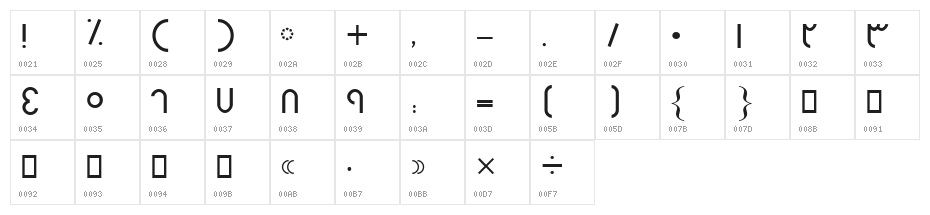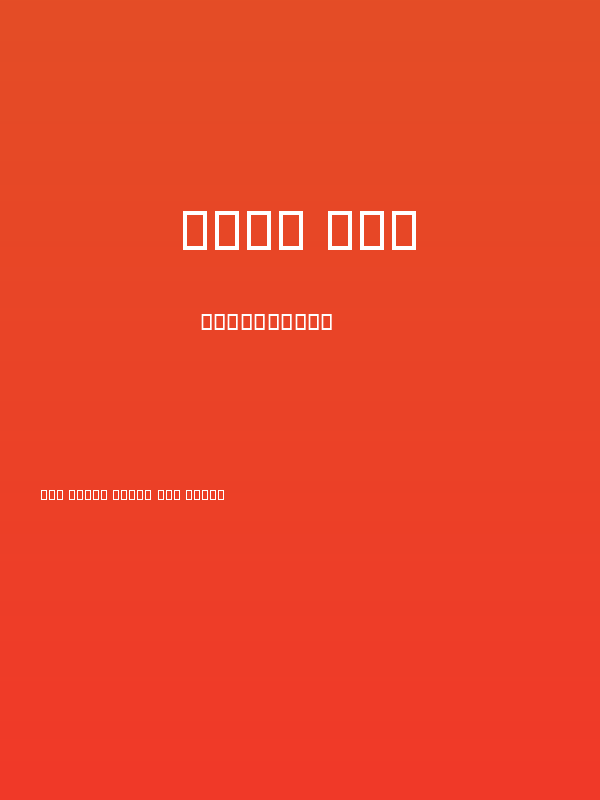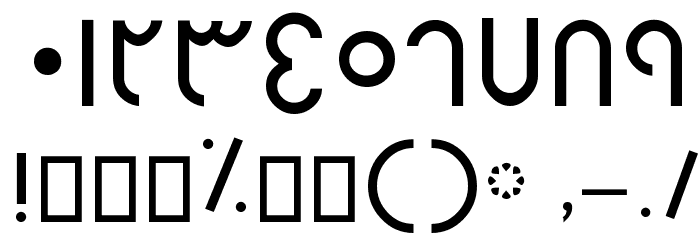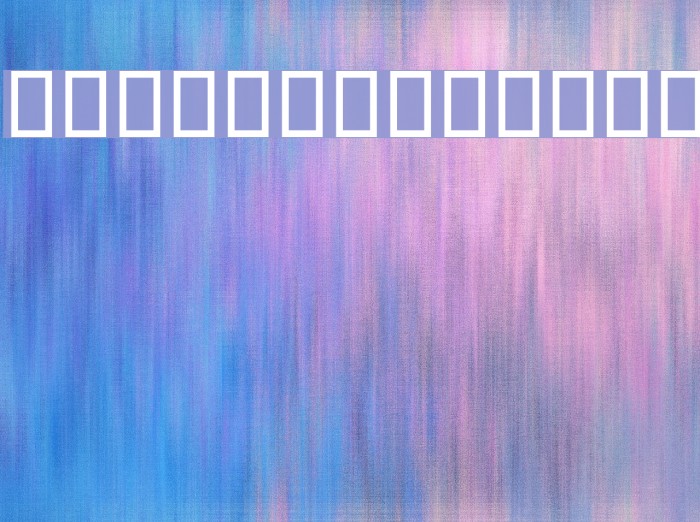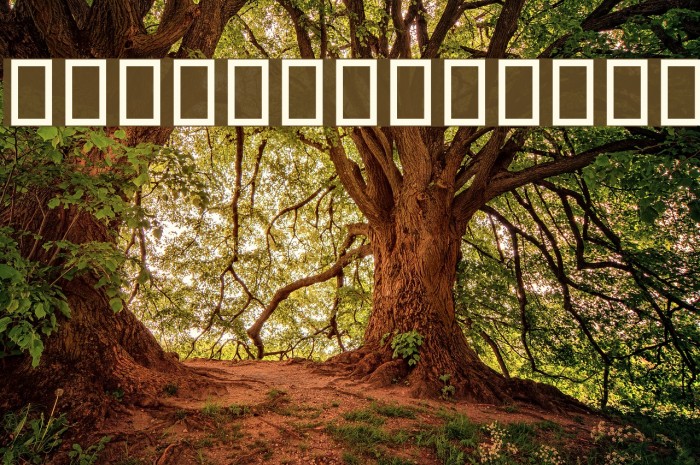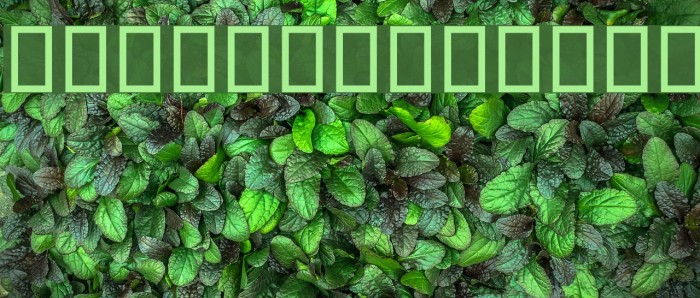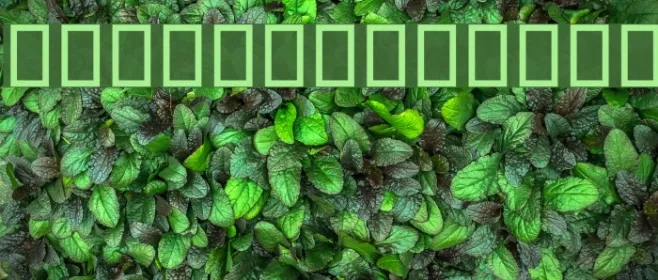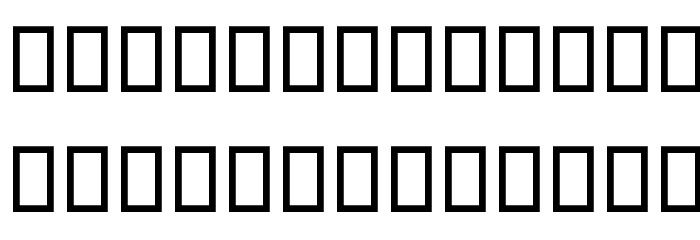
Gerd III Font
Gerd III Description
This font features a modern and minimalist design with clean, geometric shapes. The characters have a uniform stroke width, giving them a sleek and contemporary appearance. The uppercase letters are bold and assertive, while the lowercase letters maintain a consistent style that complements the overall aesthetic. The numerals are distinct and easy to read, with a slightly rounded appearance that adds a touch of softness to the otherwise sharp design. Special characters are well-integrated, maintaining the font's cohesive look. This font's simplicity and clarity make it suitable for various design applications.
| Use Case | Headlines, Logos, Digital Interfaces |
| Proposed Projects | Ideal for branding, digital interfaces, and modern print materials. |